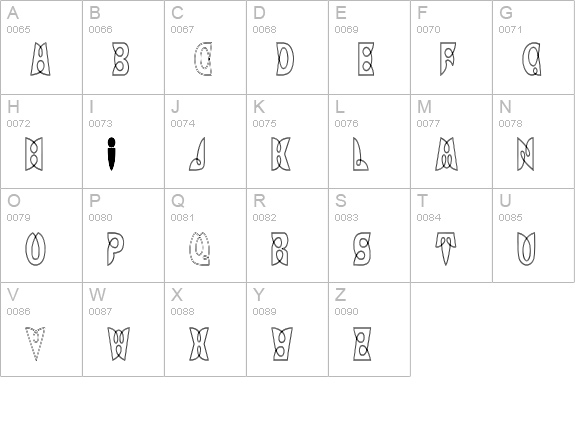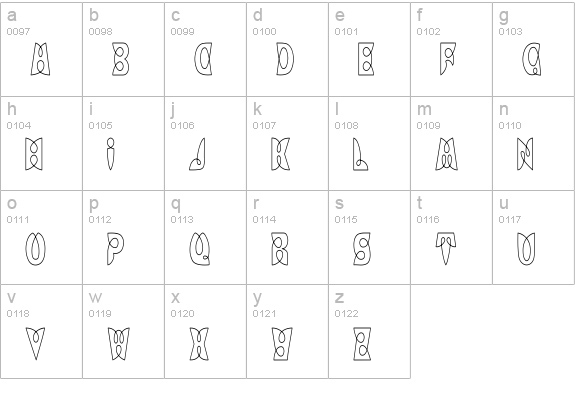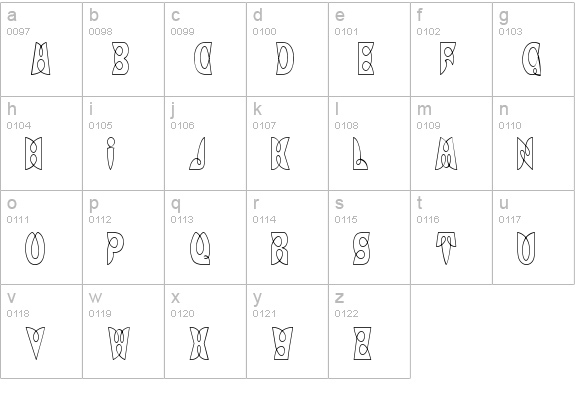
LoopDeLoopHC Font Details
LoopDeLoopHC is a whimsical and playful font that will add a touch of fun to any project. Its unique loops and curves give it a dynamic and energetic feel, perfect for designs that need a bit of personality. This font is free to download at FontsMarket.com, making it an accessible choice for anyone looking to inject some creativity into their work. Whether you're designing posters, invitations, or social media graphics, LoopDeLoopHC is sure to make your text stand out with its bold and eye-catching style. Let your imagination run wild with this free font and watch your designs come to life!